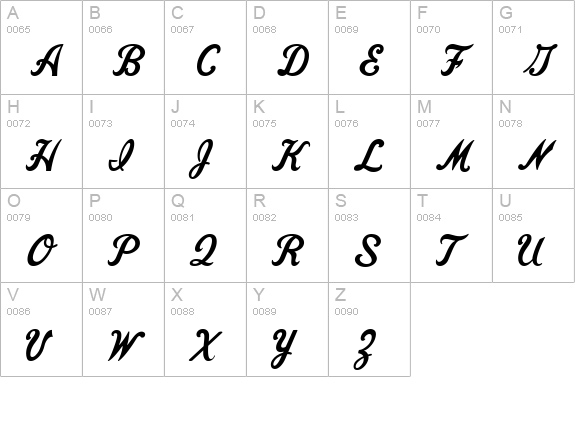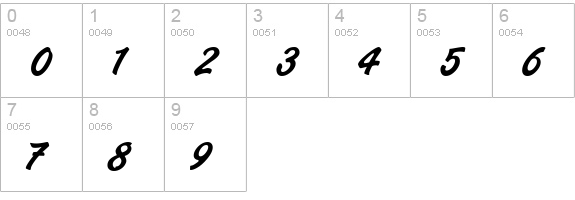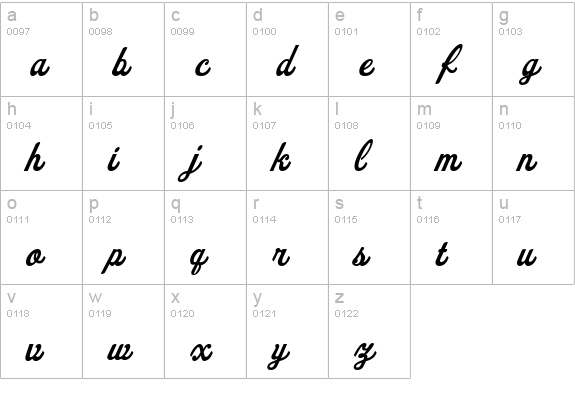
FenwayParkJF Font Details
FenwayParkJF is a stylish and modern font that exudes elegance and sophistication. With its sleek lines and unique character design, this font is perfect for adding a touch of flair to any project. Whether you're designing a logo, creating a poster, or crafting a stunning website, FenwayParkJF is sure to make a statement. The best part? FenwayParkJF is completely free to download at FontsMarket.com. That's right, you can elevate your designs with this premium font without spending a dime. Don't miss out on this opportunity to enhance your creative projects with the beauty and versatility of FenwayParkJF. Download it now and let your creativity soar!